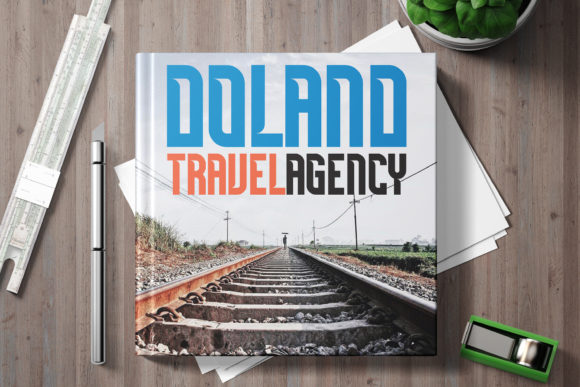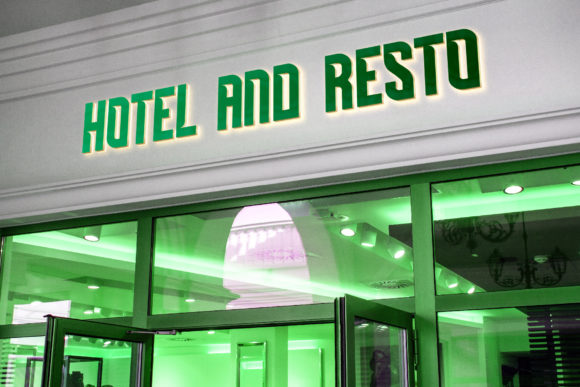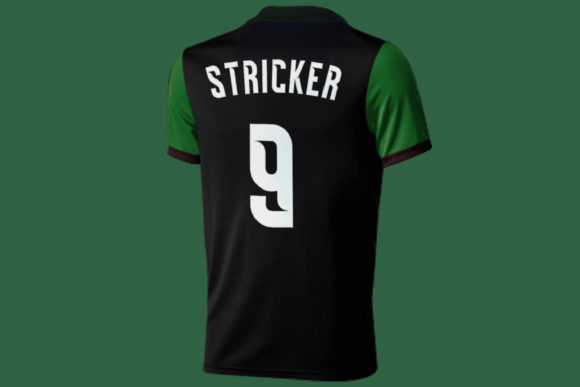
Unleash Your Creativity with Bigbos Font: The Ultimate Display Font
Bigbos is an incredibly unique display font that has been masterfully designed to become a true favorite among designers and crafters. With its distinctive style and versatility, this font has the potential to bring each of your creative ideas to the highest level. In this article, we’ll dive into the world of Bigbos Font, exploring its features, benefits, and uses, and why it’s a must-have for any creative project.
What Makes Bigbos Font So Special?
Bigbos Font is a one-of-a-kind display font that boasts a bold and eye-catching design. Its unique style is characterized by its distinctive letterforms, which are carefully crafted to make a statement. Whether you’re looking to create a stunning headline, a bold logo, or a captivating poster, Bigbos Font is the perfect choice. Its exceptional legibility and readability make it an excellent option for both digital and print projects.
Key Features of Bigbos Font
• Unique and Exclusive Design: Bigbos Font features a distinctive and exclusive design that sets it apart from other fonts.
• Highly Legible and Readable: The font’s careful craftsmanship ensures that it’s easy to read, even at small sizes.
• Versatile and Adaptable: Bigbos Font can be used for a wide range of projects, from digital designs to print materials.
• Bold and Eye-Catching: The font’s bold design makes it perfect for creating stunning headlines, logos, and posters.
Benefits of Using Bigbos Font
So, why should you choose Bigbos Font for your next project? Here are just a few benefits of using this incredible display font:
• Adds Visual Impact: Bigbos Font’s bold and eye-catching design adds a touch of drama and visual interest to any project.
• Enhances Creativity: With Bigbos Font, you can unleash your creativity and bring your ideas to life in a unique and captivating way.
• Perfect for Branding and Advertising: The font’s distinctive style makes it an excellent choice for branding, advertising, and marketing materials.
• Easy to Use and Customize: Bigbos Font is easy to install and use, and can be customized to fit your specific design needs.
Who Can Benefit from Bigbos Font?
Bigbos Font is a versatile font that can be used by a wide range of designers and crafters, including:
• Graphic Designers: Bigbos Font is perfect for graphic designers looking to create stunning visual materials, such as brochures, posters, and logos.
• Branding and Advertising Agencies: The font’s bold and eye-catching design makes it an excellent choice for branding and advertising agencies looking to create captivating marketing materials.
• Crafters and Makers: Bigbos Font is also perfect for crafters and makers looking to add a personal touch to their handmade projects, such as signs, cards, and invitations.
How to Get the Most Out of Bigbos Font
To get the most out of Bigbos Font, here are a few tips and tricks:
• Experiment with Different Sizes and Colors: Bigbos Font looks great in a variety of sizes and colors, so don’t be afraid to experiment and find the perfect combination for your project.
• Pair it with Other Fonts: Bigbos Font pairs well with other fonts, so try combining it with a complementary font to create a unique and visually appealing design.
• Use it for Headlines and Titles: Bigbos Font is perfect for headlines and titles, so use it to add a touch of drama and visual interest to your project.
Font Name Bigbos Font
Author da_only_aan
In conclusion, Bigbos Font is an incredibly unique and versatile display font that has the potential to bring each of your creative ideas to the highest level. With its bold and eye-catching design, exceptional legibility and readability, and adaptability, this font is perfect for a wide range of projects, from digital designs to print materials. Whether you’re a graphic designer, branding and advertising agency, or crafter and maker, Bigbos Font is a must-have for any creative project.